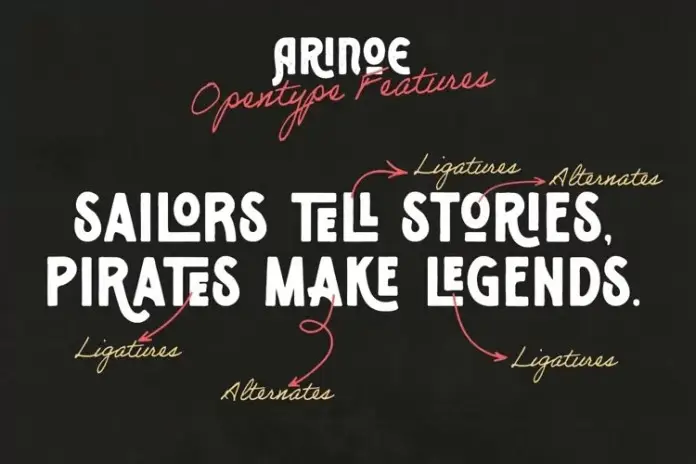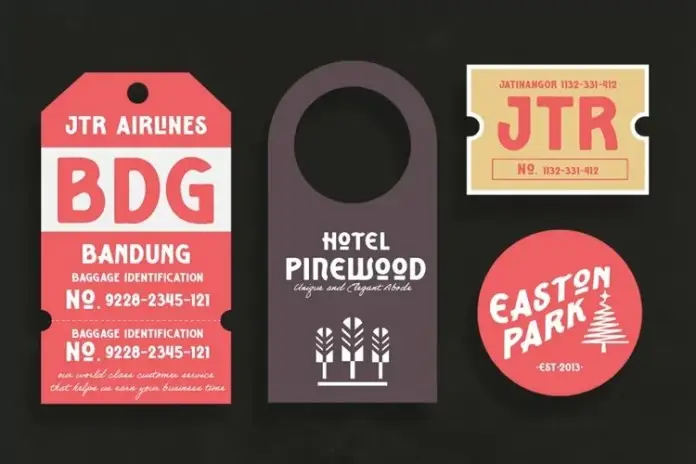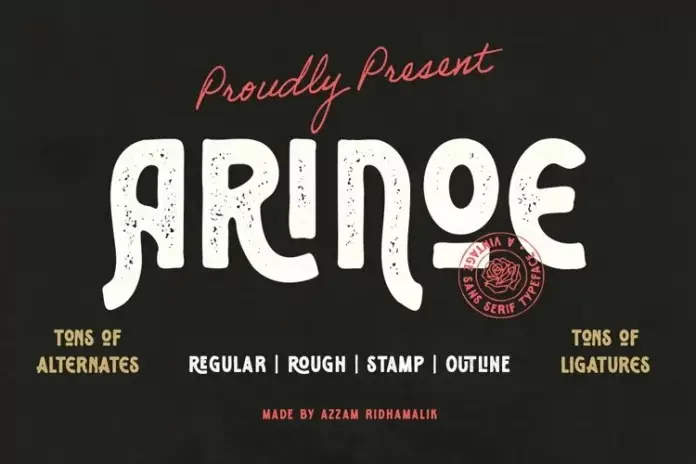
Arinoe Display Font
The Arinoe Display Font is a stunning typeface designed to make your projects stand out. With its unique character and bold presence, this font is perfect for creating eye-catching headlines, logos, and branding materials.
• Stylish display font with a modern aesthetic
• Multiple weights for versatile usage
• Supports a wide range of languages
This font is ideal for branding, promotional materials, posters, and any project that requires a distinctive touch.